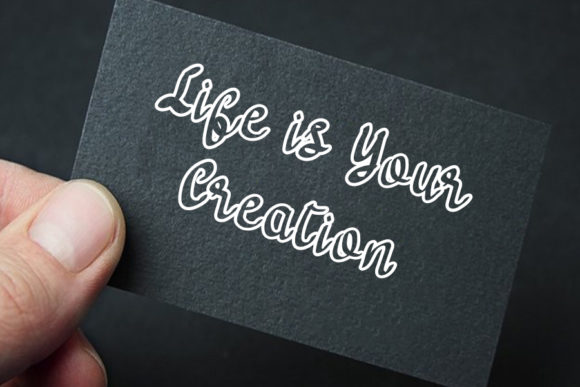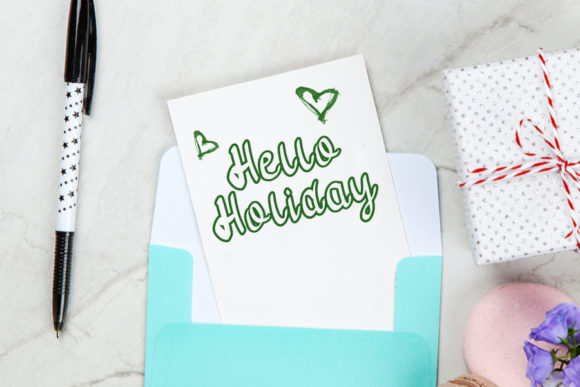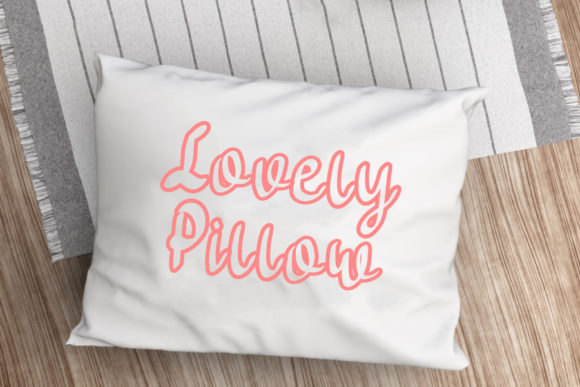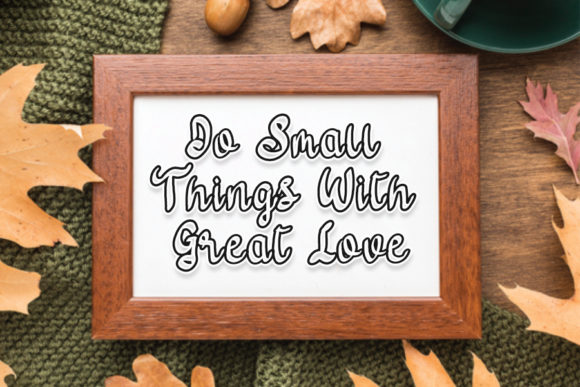
About Lovely Holiday Font
Lovely Holiday is a delicate and unique handwritten font, featuring a lovely charm. It will turn any design project into a stand out!